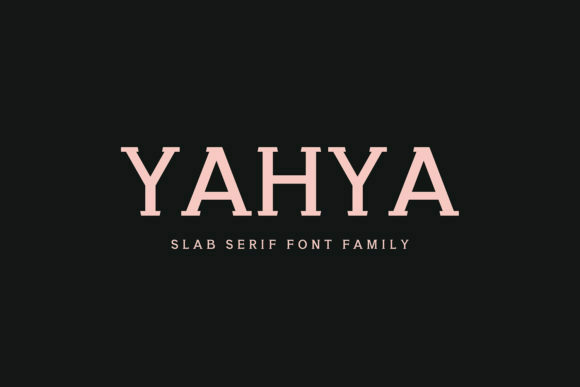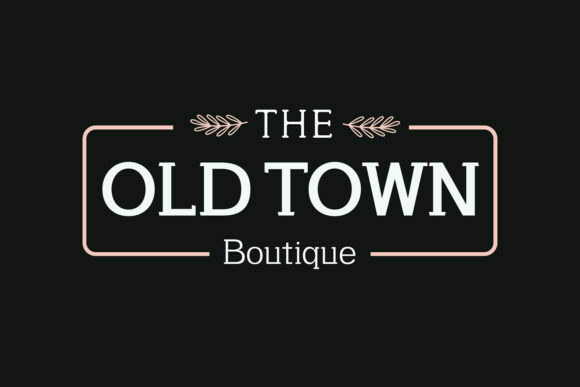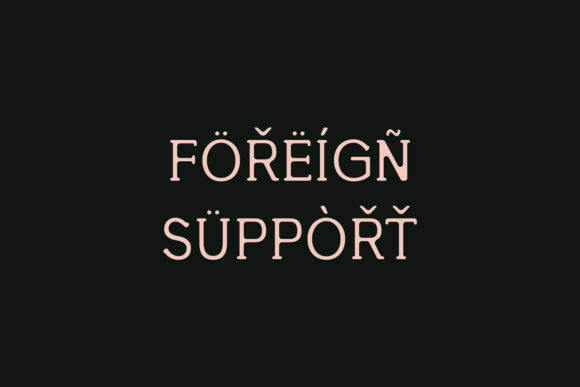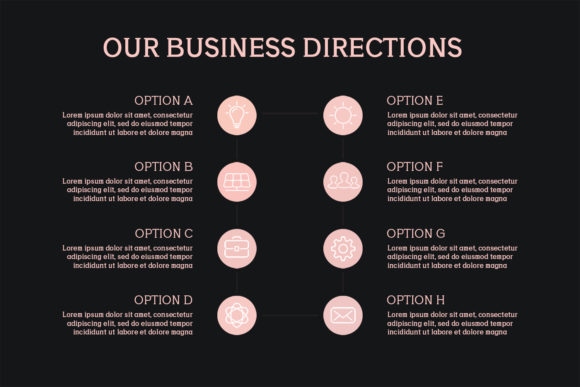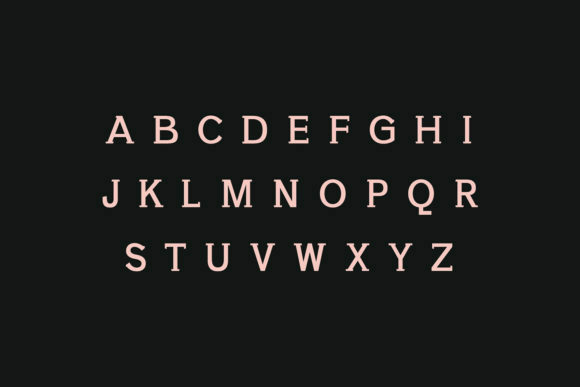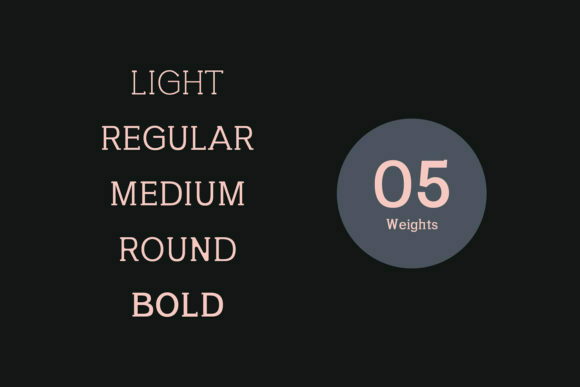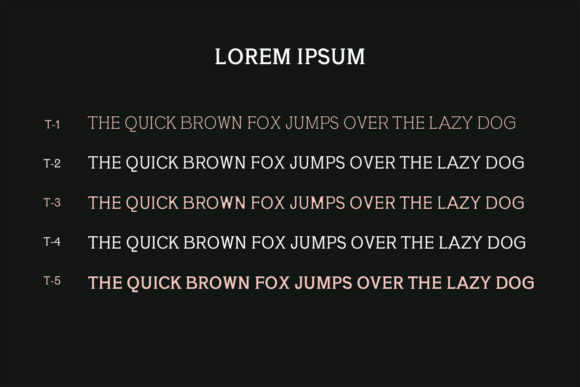
HomeSerif FontsYahya Font Serif Fonts Yahya Font FacebookTwitterPinterestWhatsApp YAHYA FONT SPECIMEN Yahya is a sweet and charming slab serif font. It’s an ideal addition to any font collection! People also explored Nostalgia Script Font Better Regards Font Hello September Font Challum Font Legend Font Positive Thinking Font Rockmore Font Candy Font Mozzan Font 184 0 TagsYahya Previous articleHarjuna FontNext articleNayanika Font LEAVE A REPLY Cancel reply Comment: Please enter your comment! Name:* Please enter your name here Email:* You have entered an incorrect email address! Please enter your email address here Website: Save my name, email, and website in this browser for the next time I comment. Personal Use Free Marthissa Personal Use Free Read more about this font Whitelight Personal Use Free Read more about this font Romantic February Personal Use Free Read more about this font Boronic Personal Use Free Read more about this font BLOG To increase your work productivity, choose the most readable fonts. In today's fast-paced work environment, where digital communication and information consumption are integral to our daily routines, the choice of fonts can significantly impact... Free vs Paid Fonts: Why Investing in Premium Fonts Is Worth It Best Fonts for T-Shirt Design – Top 2025 Picks Exploring Font Trends